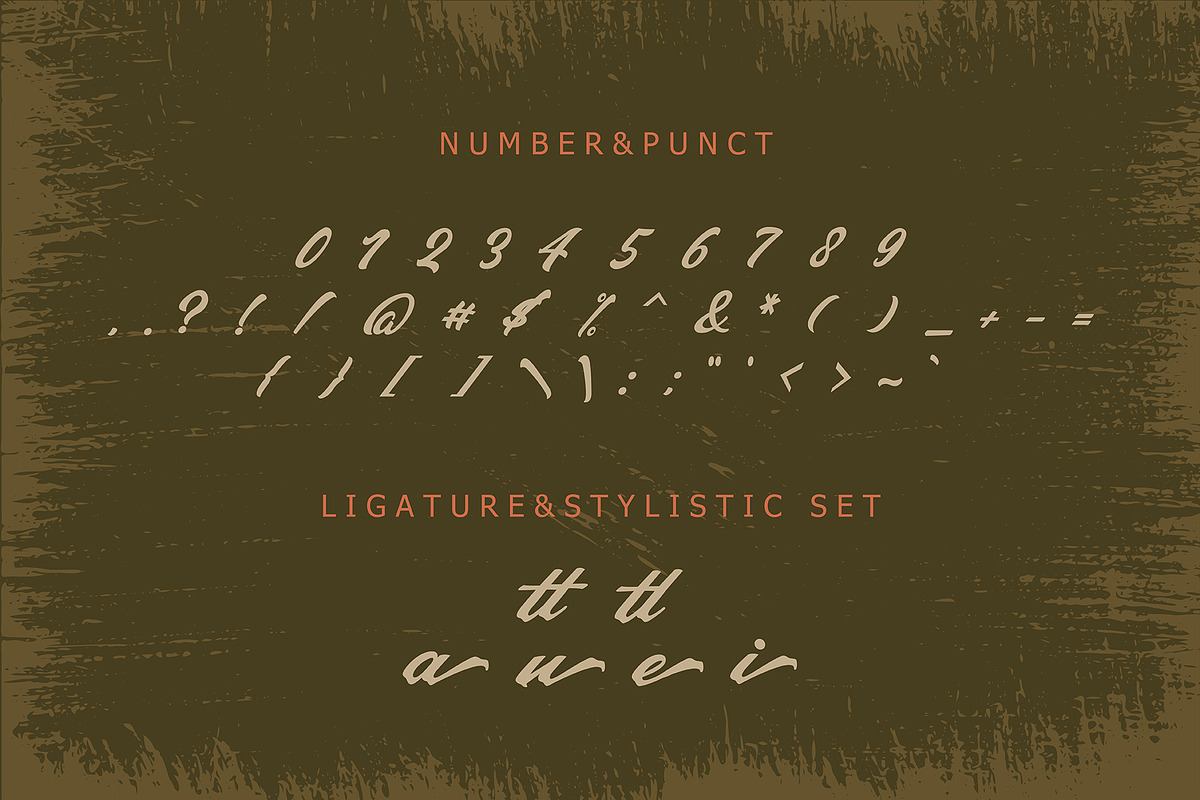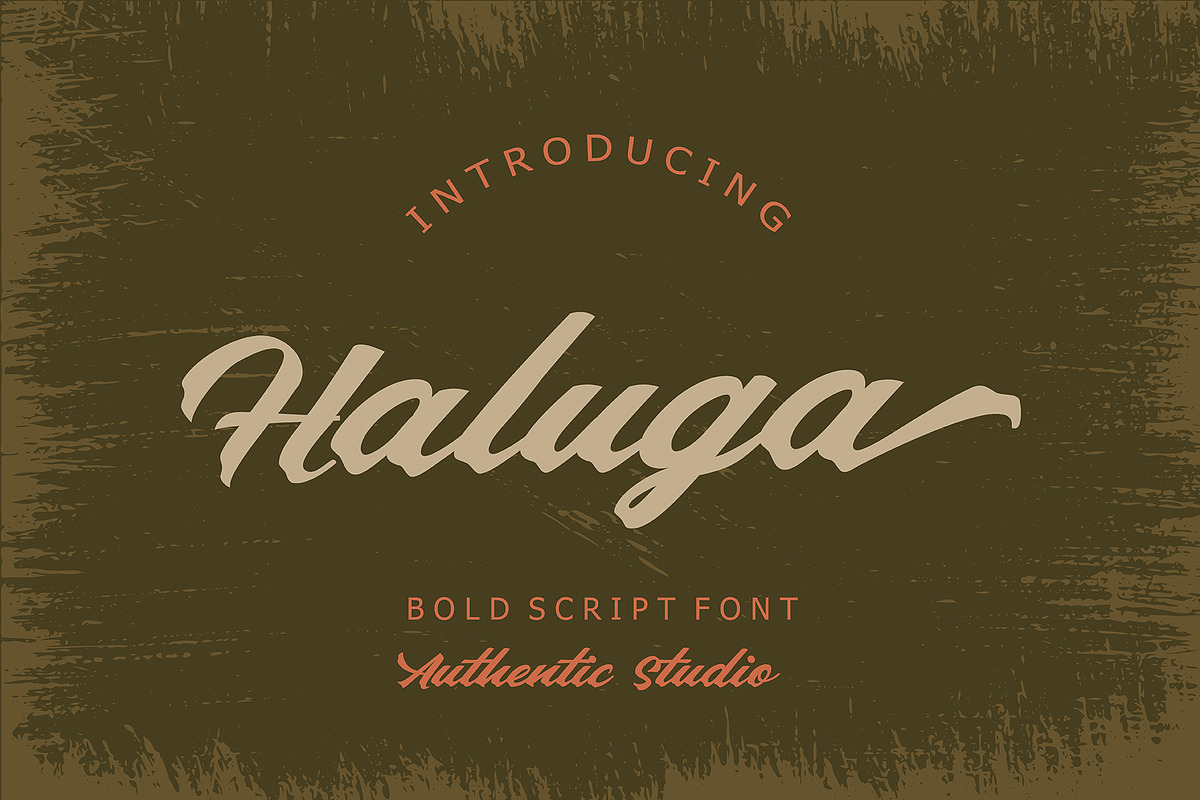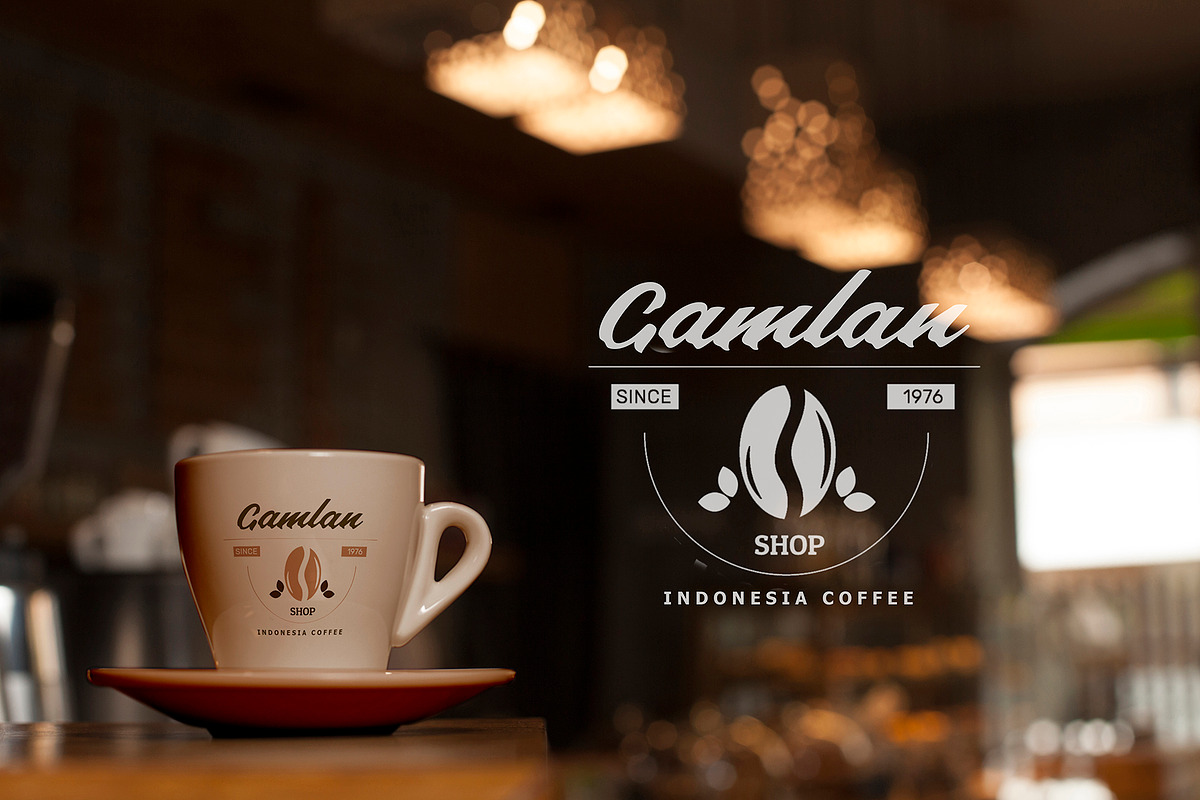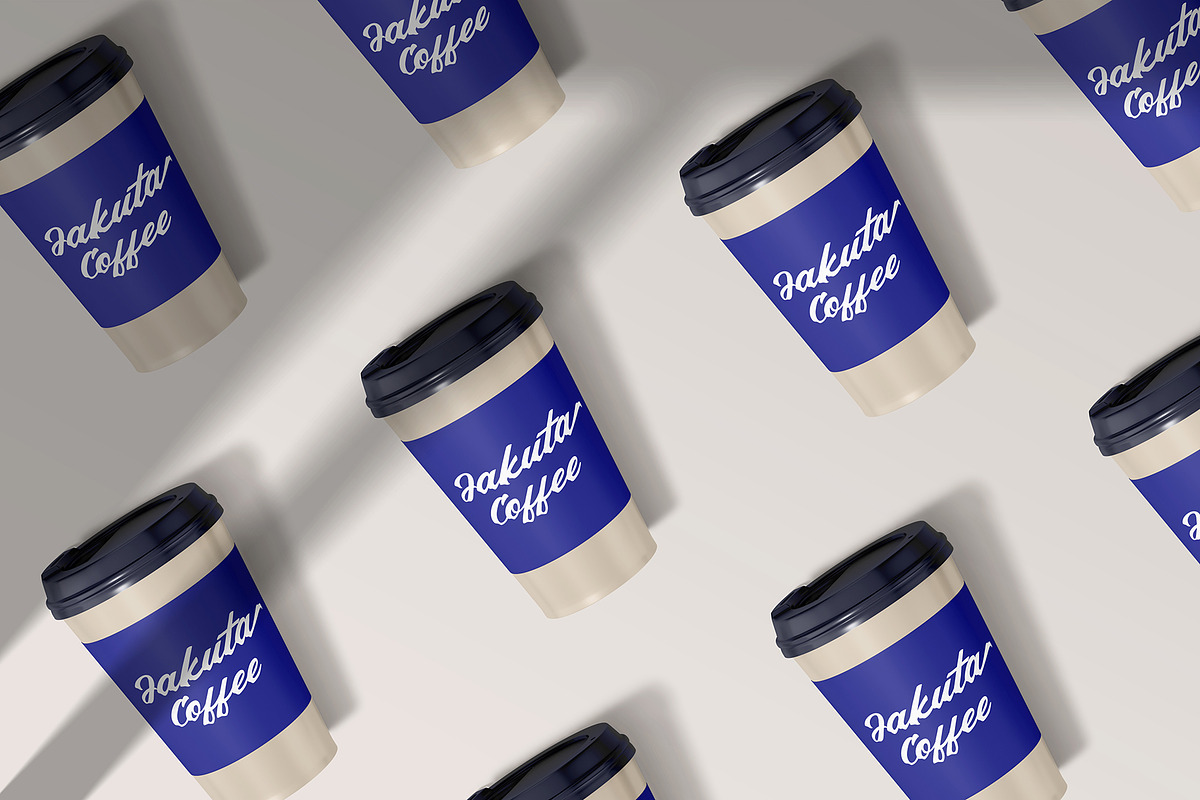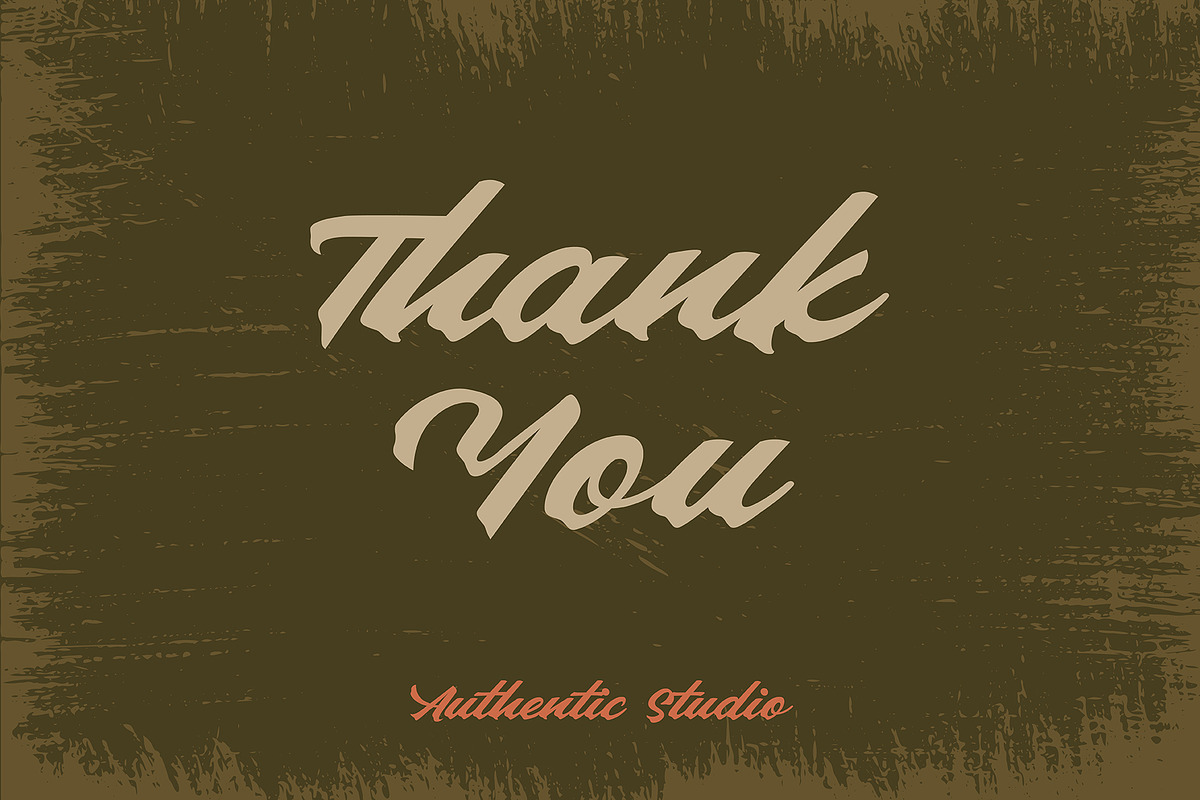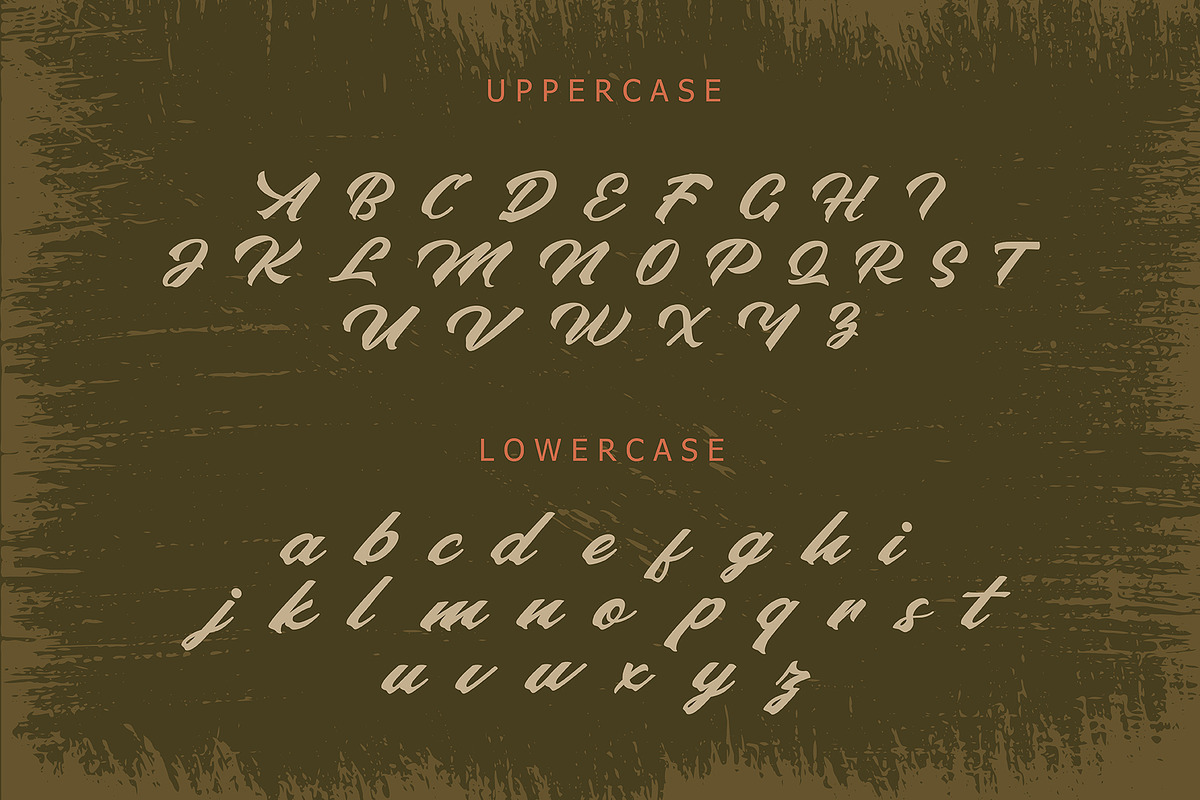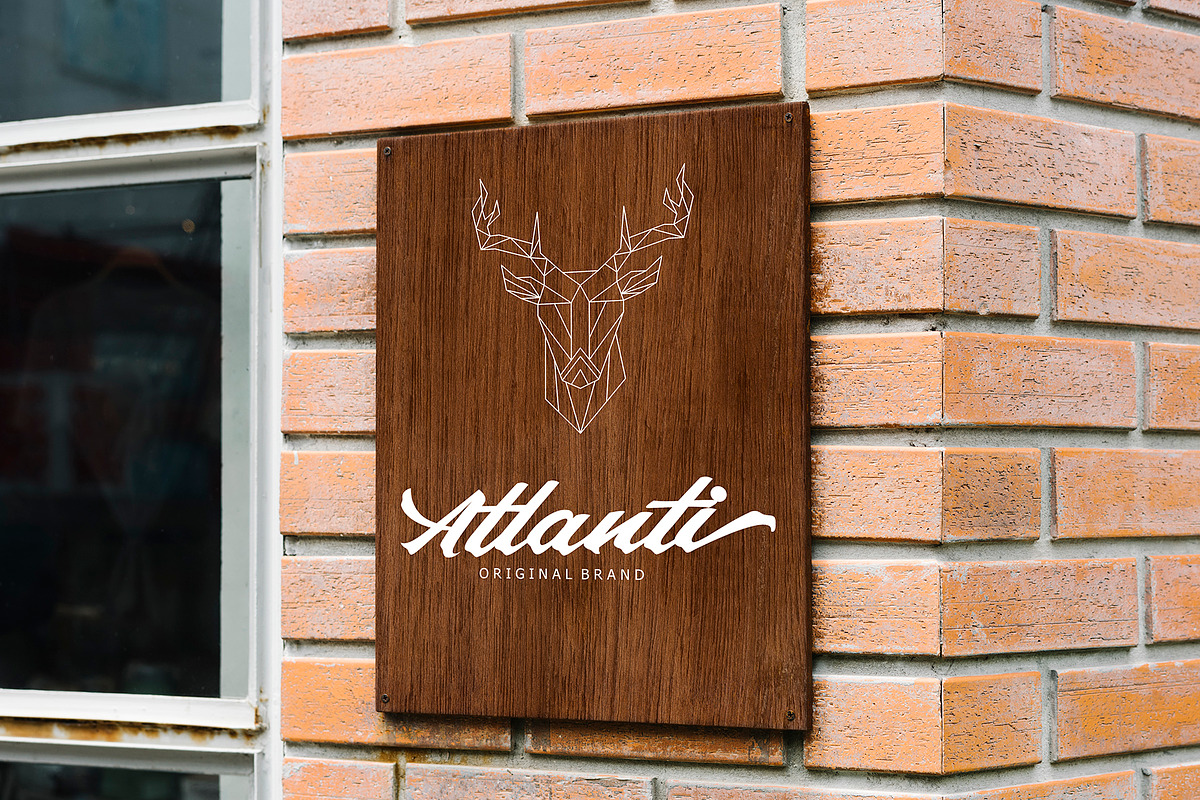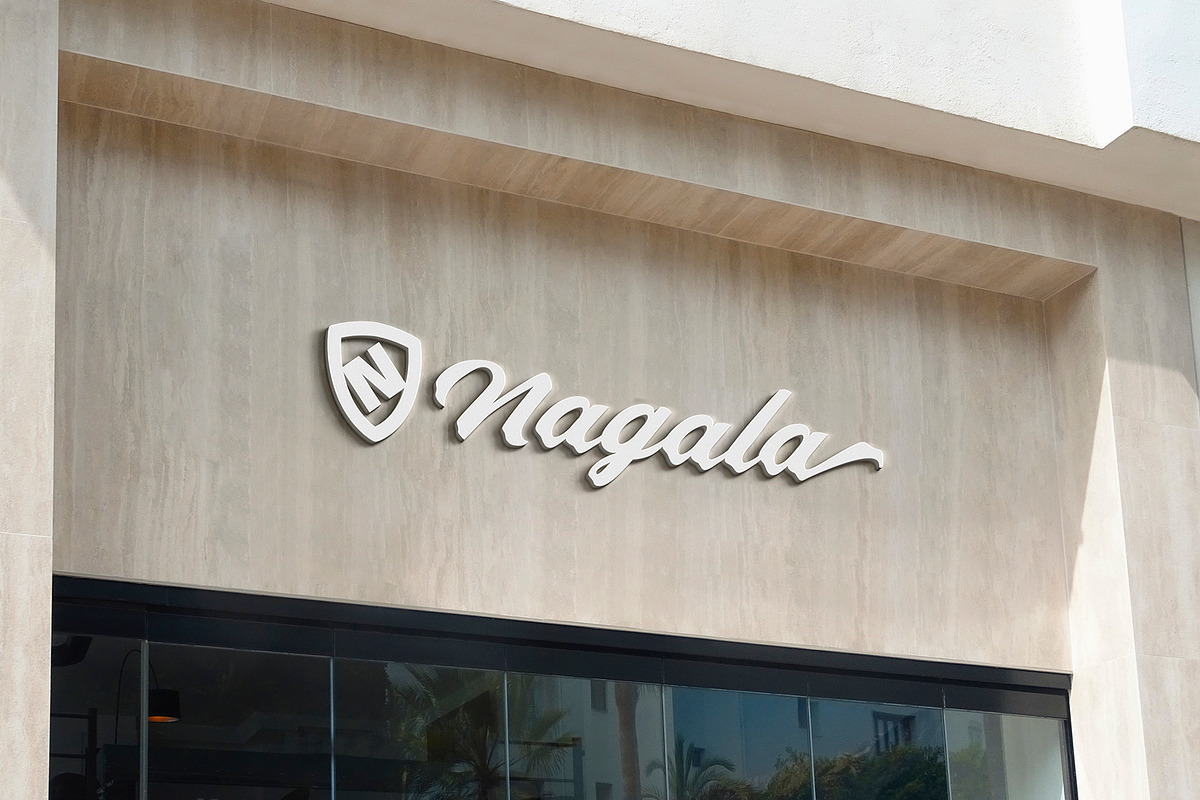
Haluga
Say hallo to our newest item : Haluga
Amazing hand lettering look bold script typeface ! This font perfectly made to be applied especially in logo, and the other various formal forms such as invitations, labels, logos, magazines, books, greeting / wedding cards, packaging, fashion, make up, stationery, novels, labels or any type of advertising purpose.